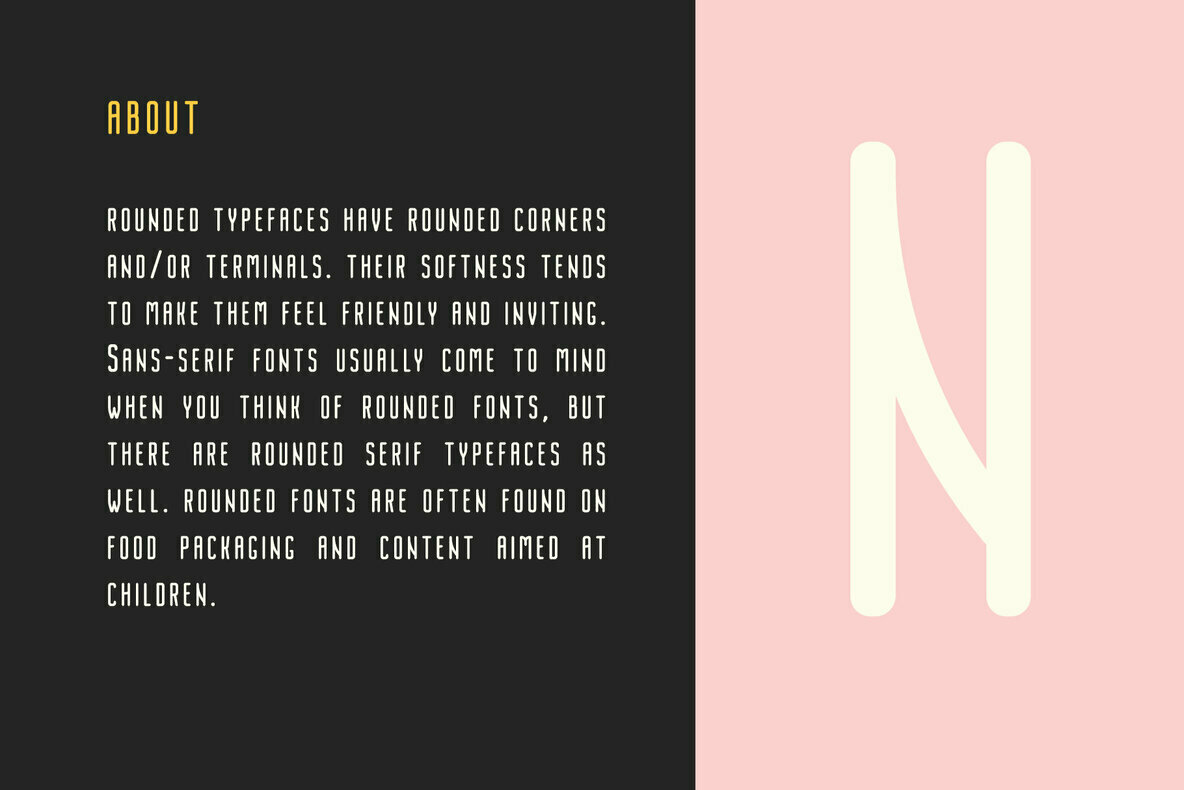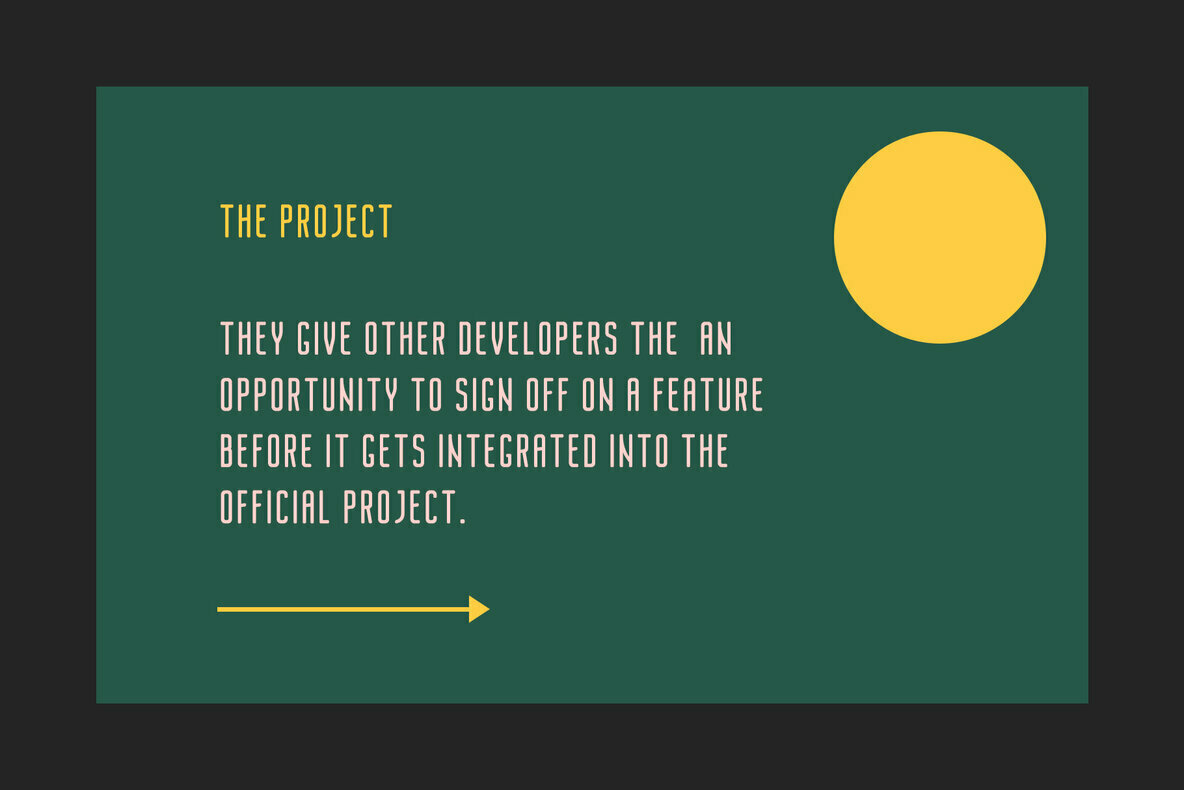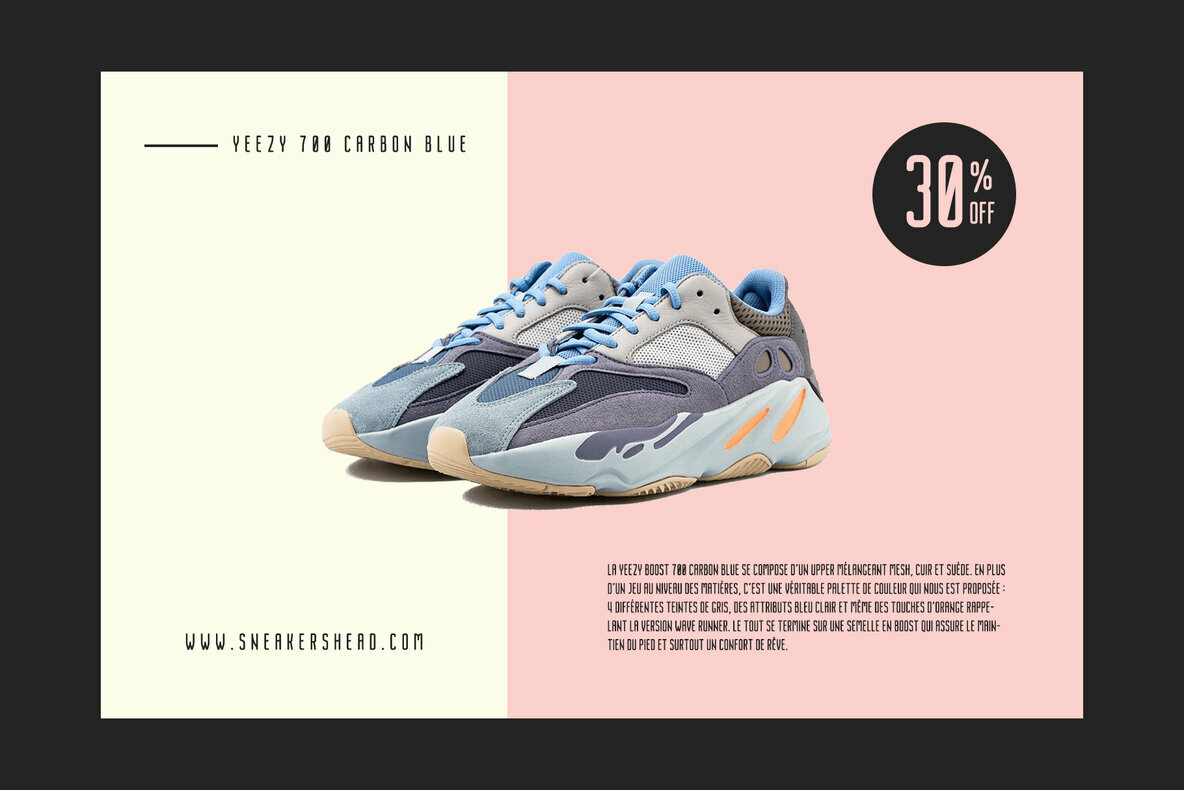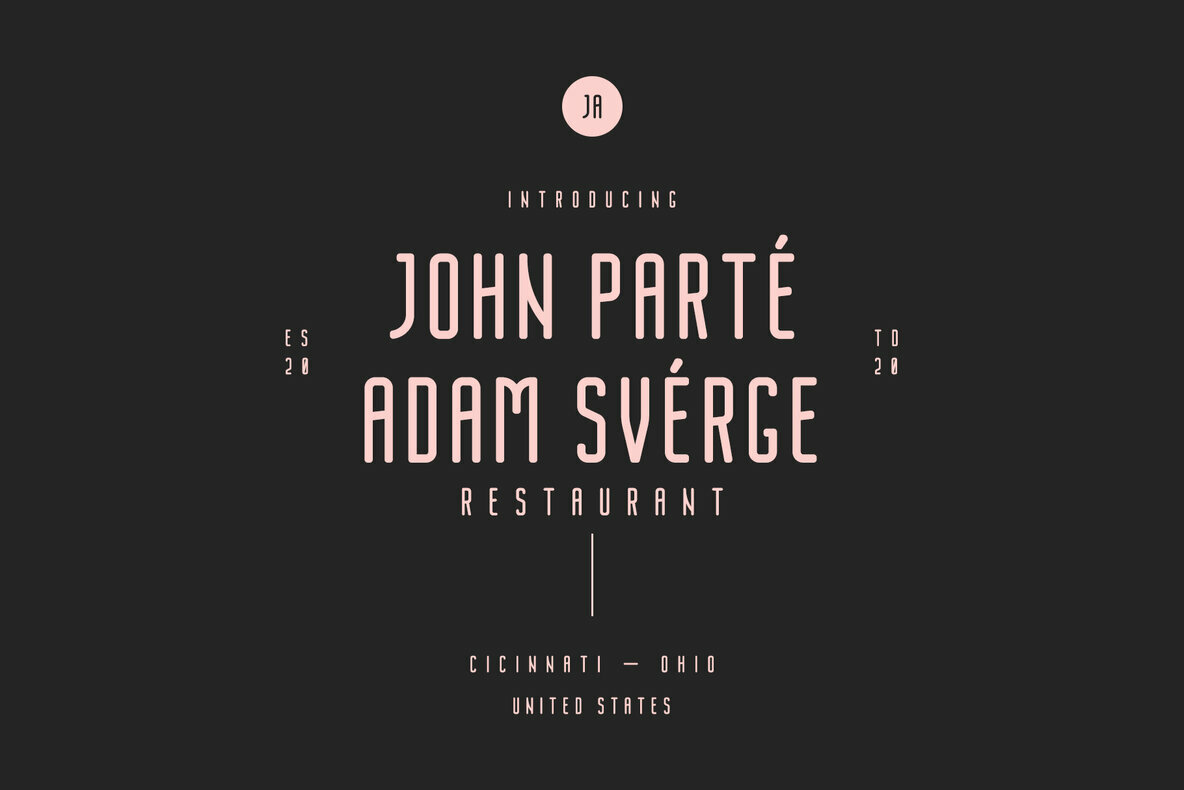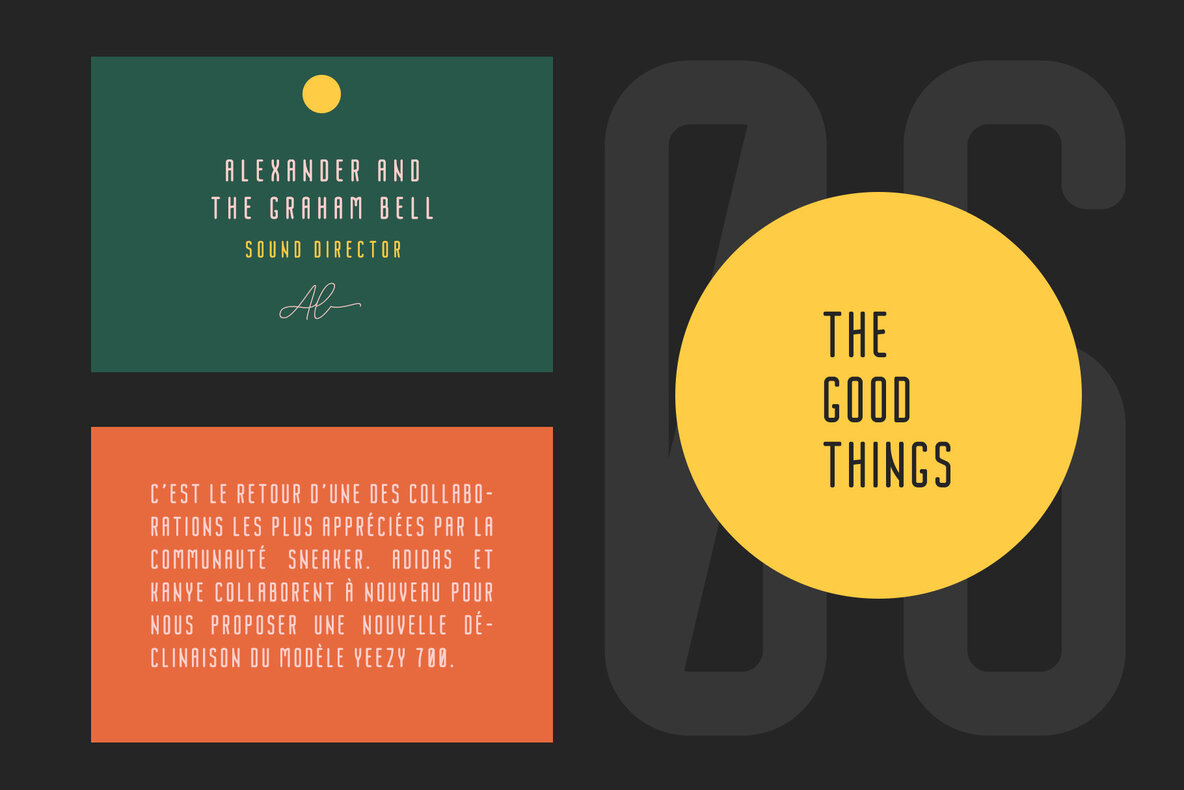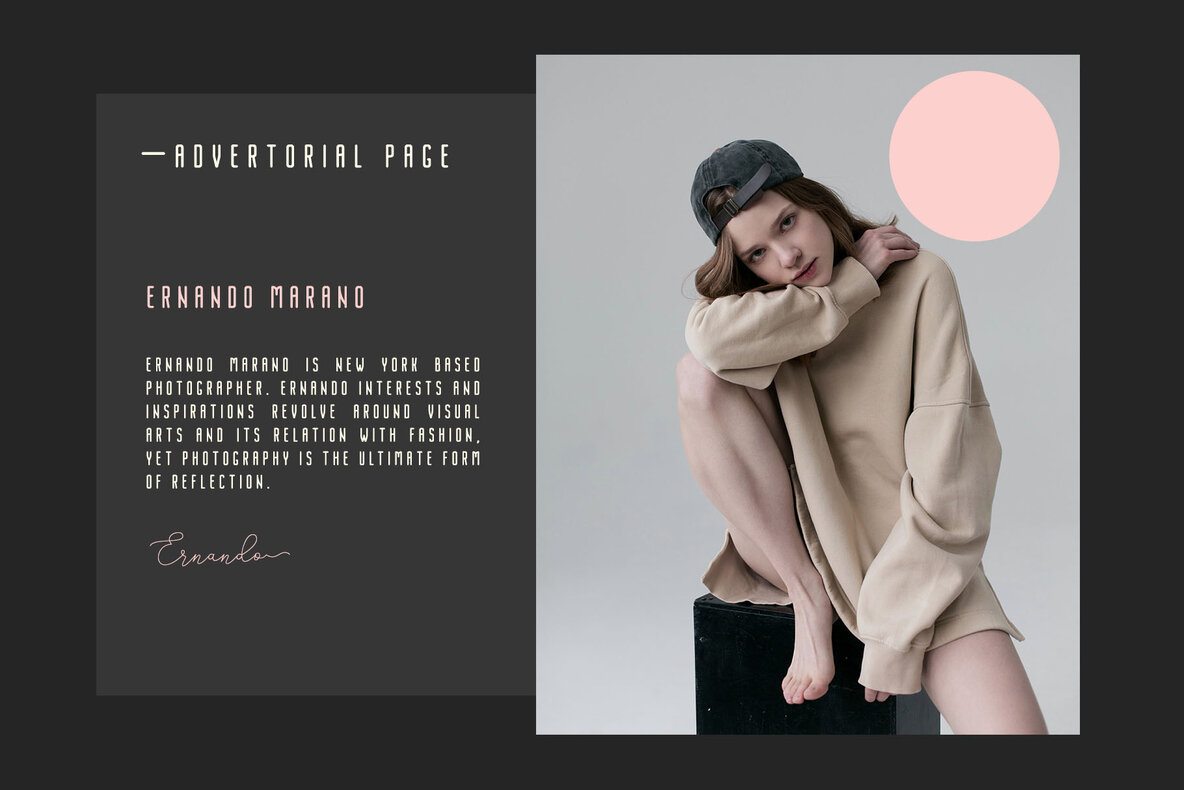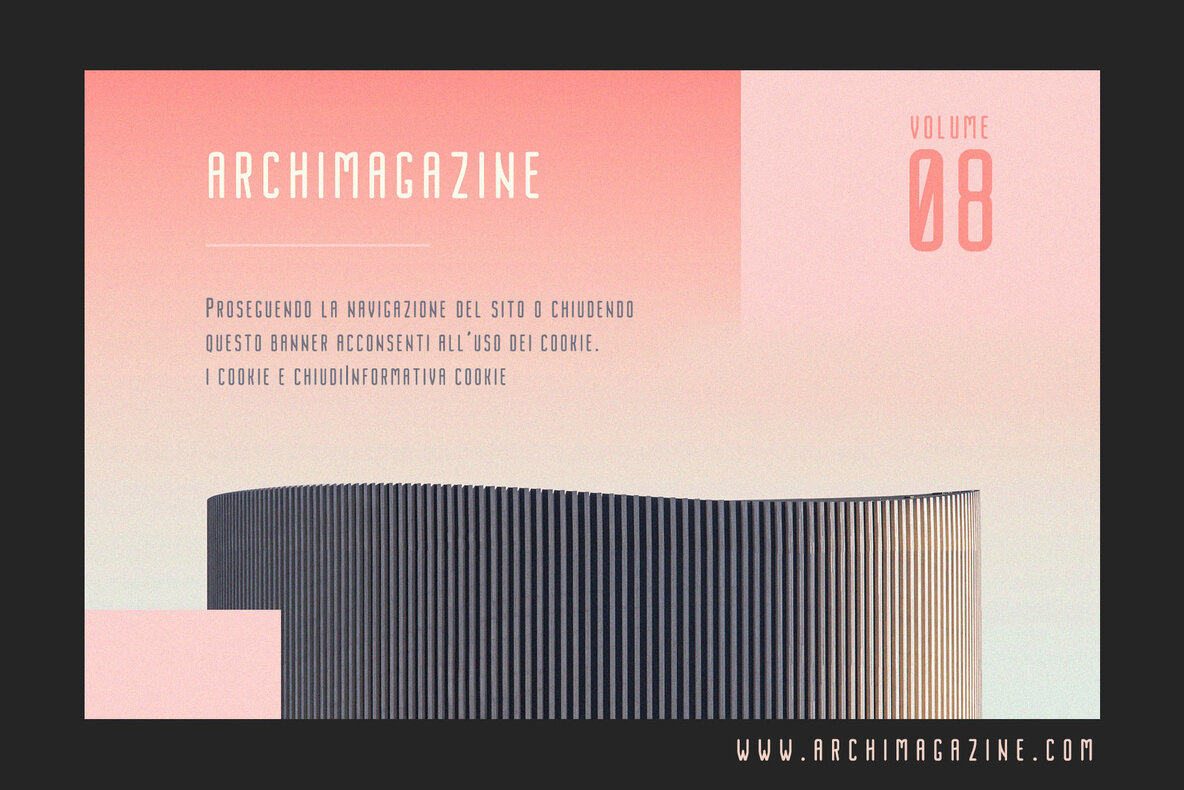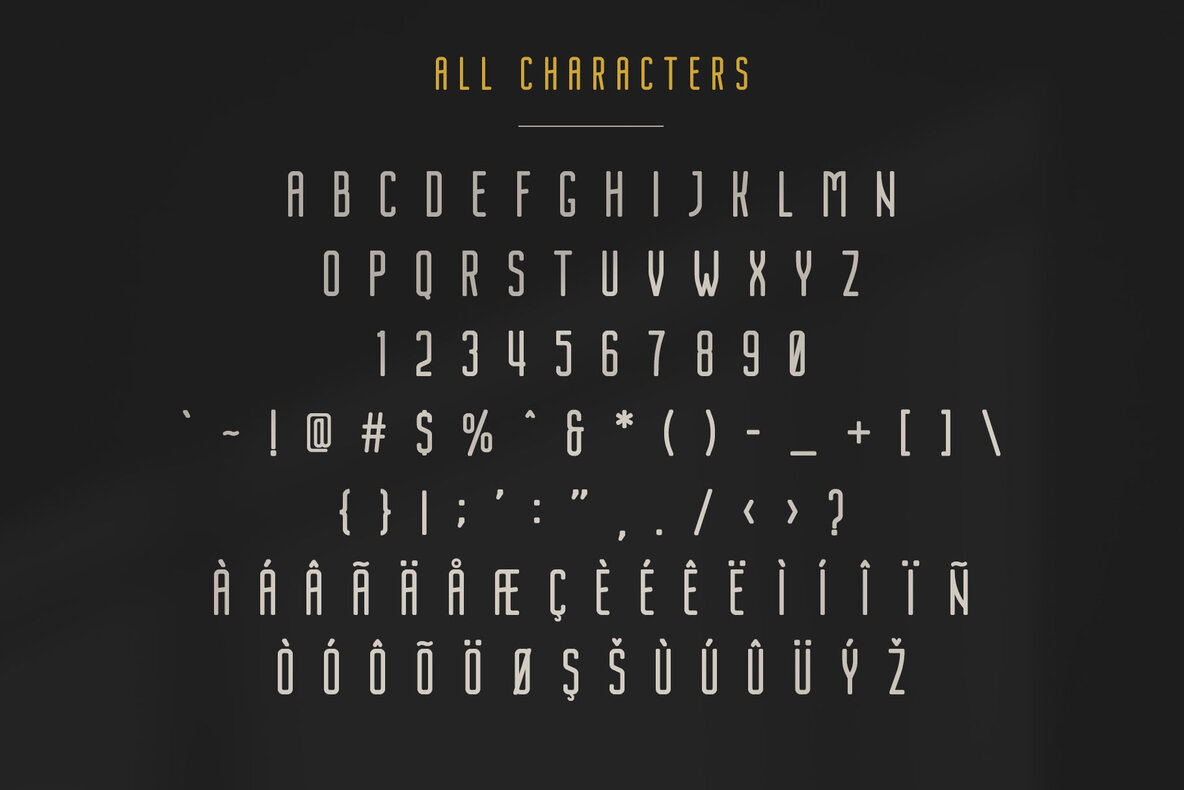
Nordin Rounded Font
Nordin Rounded Regular
Nordin Rounded - Condensed Sans Serif was inspired by the European type specimen books, especially Finland Rounded type standard. Delivering some glorious vibes of the solid values from the pioneers and keeping one eye on todays demands and technology, Nordin Rounded is made for high professional use.
Nordin Rounded - Condensed Sans Serif has been crafted from scratch with a structural logic of its own: a fusion of pure geometry and optical balance. Finland Rounded font family comes with 6 Styles, Regular, Italic, Thin, Thin Italic, Bold, Bold Italic. By combining a variety of styles Finland Rounded Font Family is suitable for Logo, greeting cards, quotes, posters, branding, name card, stationary, design title, blog header, art quote, typography
Nordin Rounded - Condensed Sans Serif also suitable for art, modern envelope lettering or book design, happening style like handdrawn design or watercolor design theme, craft design, any DIY project, book title, wedding font, pop vintage design, or any purpose to make our art/design project look pretty and trendy.
- All Caps
- Standard Ligatures
- Numerals & Punctuations (OpenType Standard)
- Accents (Multilingual characters)